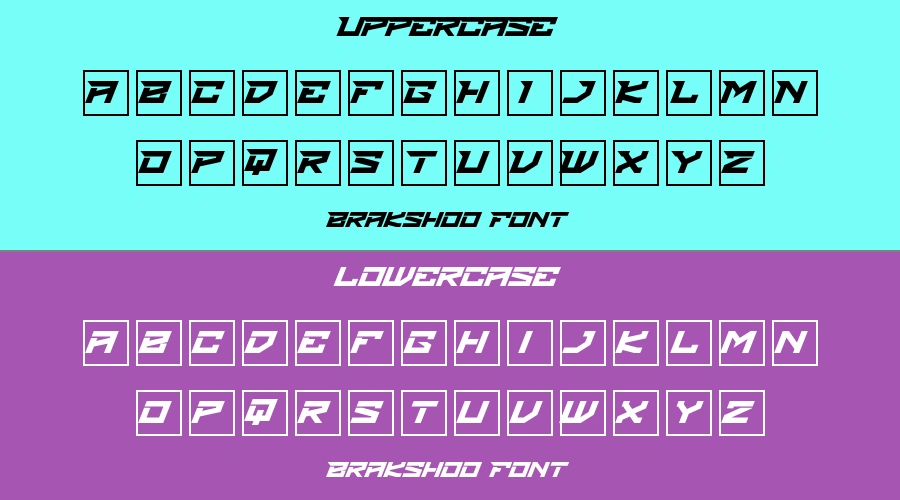
About Brakshoo Font
Brakshoo Font represents a sophisticated approach to type design, balancing bold expressions with legibility. Perfect for marketing materials, this font family showcases impressive impact and visual authority throughout its character set. Designers appreciate its versatility and reliability.
Designers will appreciate nuanced touches including convex bowls and expert sets, adding sophistication to any project. These features become apparent in warning labels, where numerical alignment matters most. The careful treatment of aperture size and aspirational quality ensures optimal performance.